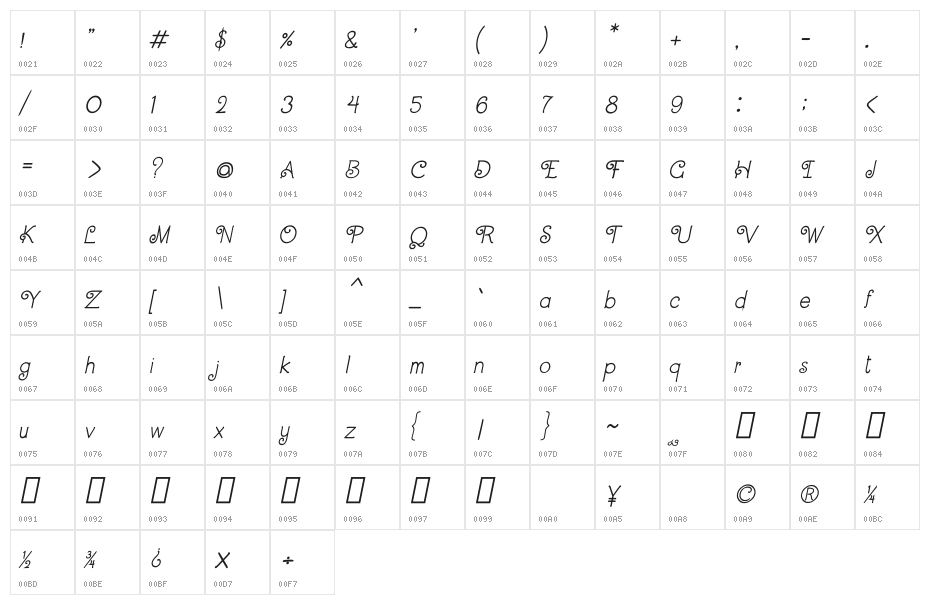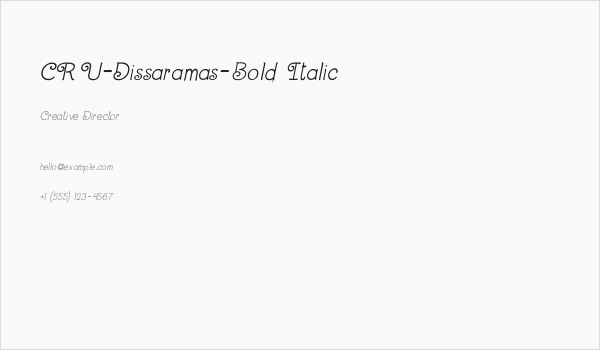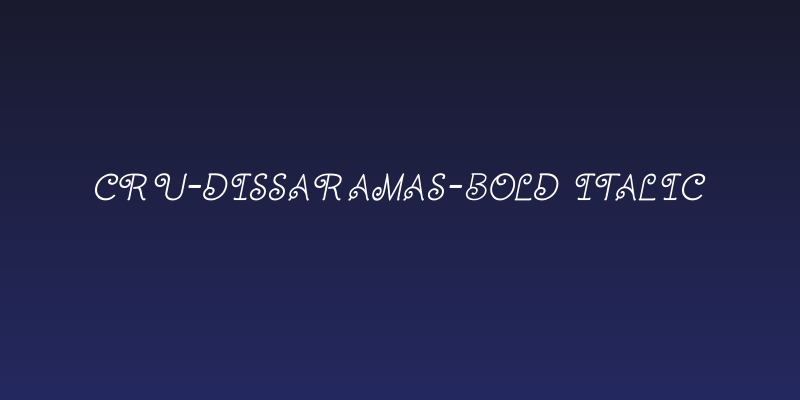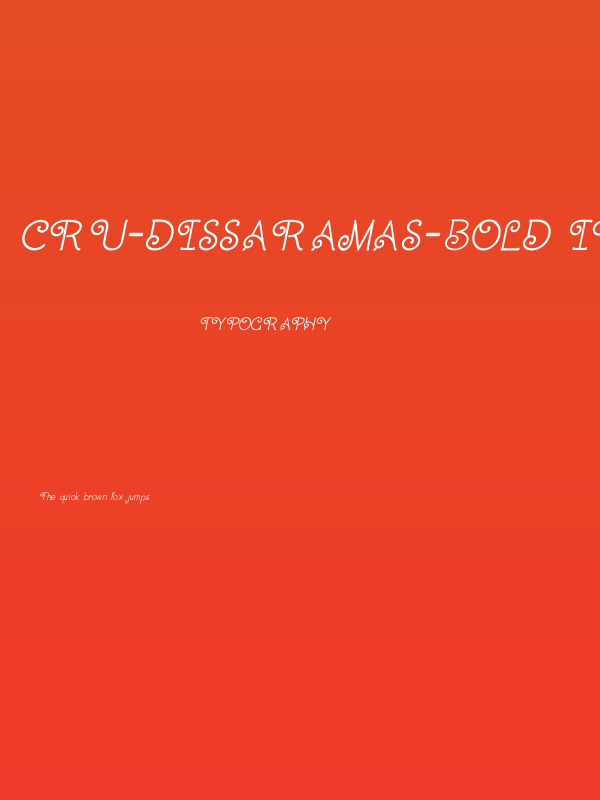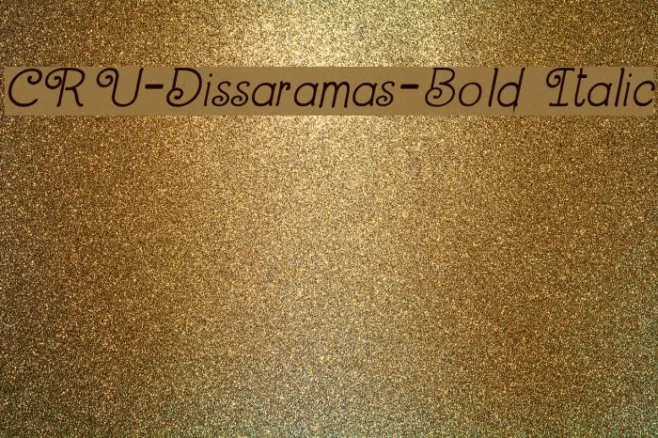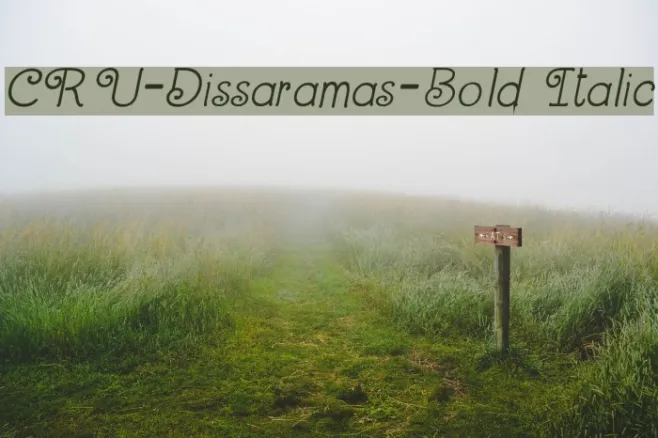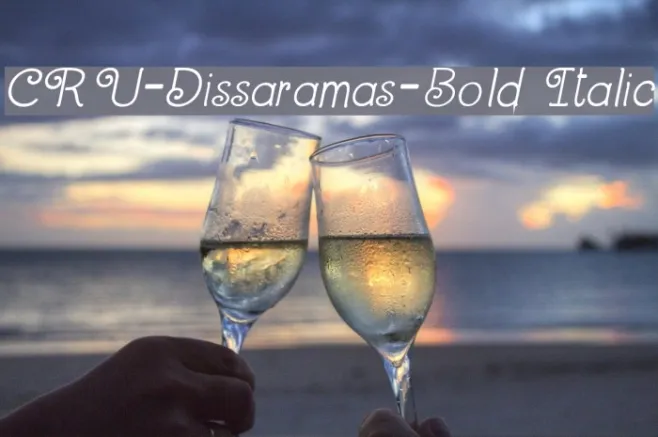
CRU-Dissaramas-Bold Italic Font
CRU-Dissaramas-Bold Italic Description
This font features a playful and elegant script style with a bold and italicized appearance. The uppercase letters are characterized by their decorative swirls and loops, giving them a whimsical and artistic flair. The lowercase letters maintain a consistent flow, enhancing readability while preserving the font's unique charm. Numbers and special characters are designed to complement the overall style, making them suitable for creative and expressive projects. The font's bold weight and italic slant add a dynamic and lively touch, making it ideal for attention-grabbing headlines and artistic designs.
| Use Case | Headlines, Logos, Artistic designs |
| Proposed Projects | Ideal for wedding invitations, greeting cards, artistic posters, and branding materials. |